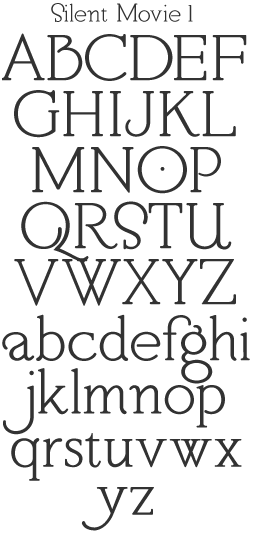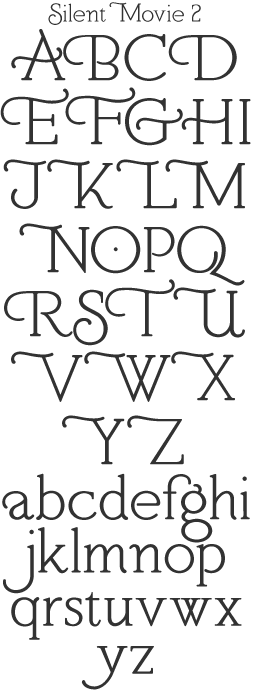
LHF Silent Movie Lettering for movie titles was a challenge for the lettering artist of the early 1900's. Since film is transparent, any touching up or over stroking with the brush resulted in a more opaque appearance in that particular area. So a "monotone" style was adopted to eliminate this. This enabled the artist to paint each letter without the need to stroke the letters twice. The result was a more uniform appearance.
LHF Silent Movie has been created by carefully studying the styles of these artists. The set Includes 2 fonts. Suggested uses include greeting cards, signs and old labels. LHF Silent Movie invokes a spirit of the early 1900's while remaining quite easy to read and surprisingly versatile.
Using in all caps invokes a straight-forward masculine style, while the lowercase letters lend themselves to a more friendly and inviting appearance. (Note: It is not recommended to use Silent Movie 2 in all uppercase. The result would be highly difficult to read.)